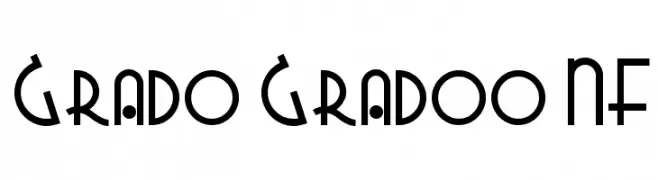
A bold, stencil-style font with geometric shapes and clean lines.
A bold, stencil-style font with distinct character breaks for an industrial look.
A bold, rugged font with jagged edges and a distressed appearance.
A bold, modern font with tall, narrow characters and high contrast.
A bold, elegant font with tall, narrow characters and high contrast.
A bold, decorative font with geometric and organic elements, perfect for impactful designs.
A bold, distressed font with a gritty, textured style.
A bold, intricate Blackletter font with medieval flair.
A bold, graffiti-inspired font with dynamic and expressive letterforms.
An ornate, decorative font with intricate flourishes and historical charm.
A dynamic and playful font with stretched, elongated characters.
A bold, geometric font with a futuristic and digital aesthetic.
A pixelated, retro-style font with a blocky, geometric design.
A pixelated, blocky font with a retro digital style.
A bold, geometric font with block-like forms and minimal contrast.
A bold, geometric font with a modern and futuristic style.
A modern, geometric font with clean lines and uniform character width.
A pixelated, retro-style font with a blocky, digital appearance.
A pixelated, retro-style font with a digital, grid-like design.
A modern, geometric font with clean lines and a structured appearance.
A modern, rounded font with smooth curves and a clean, geometric structure.
A pixelated, retro font with a blocky, digital appearance.
A bold, pixelated font with a retro digital aesthetic.
A pixelated, blocky font with a retro digital aesthetic.